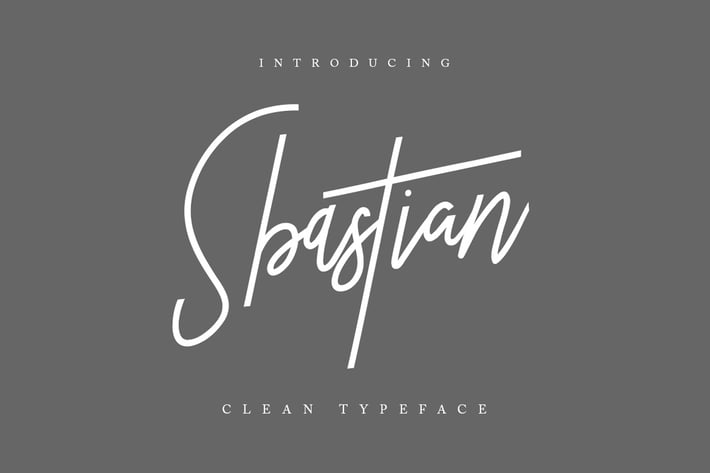
Sbastian Signature Clean Typeface
Give your designs an authentic handcrafted feel. “Sbastian Signature Typeface” is perfectly suited to stationery, logos and much more.